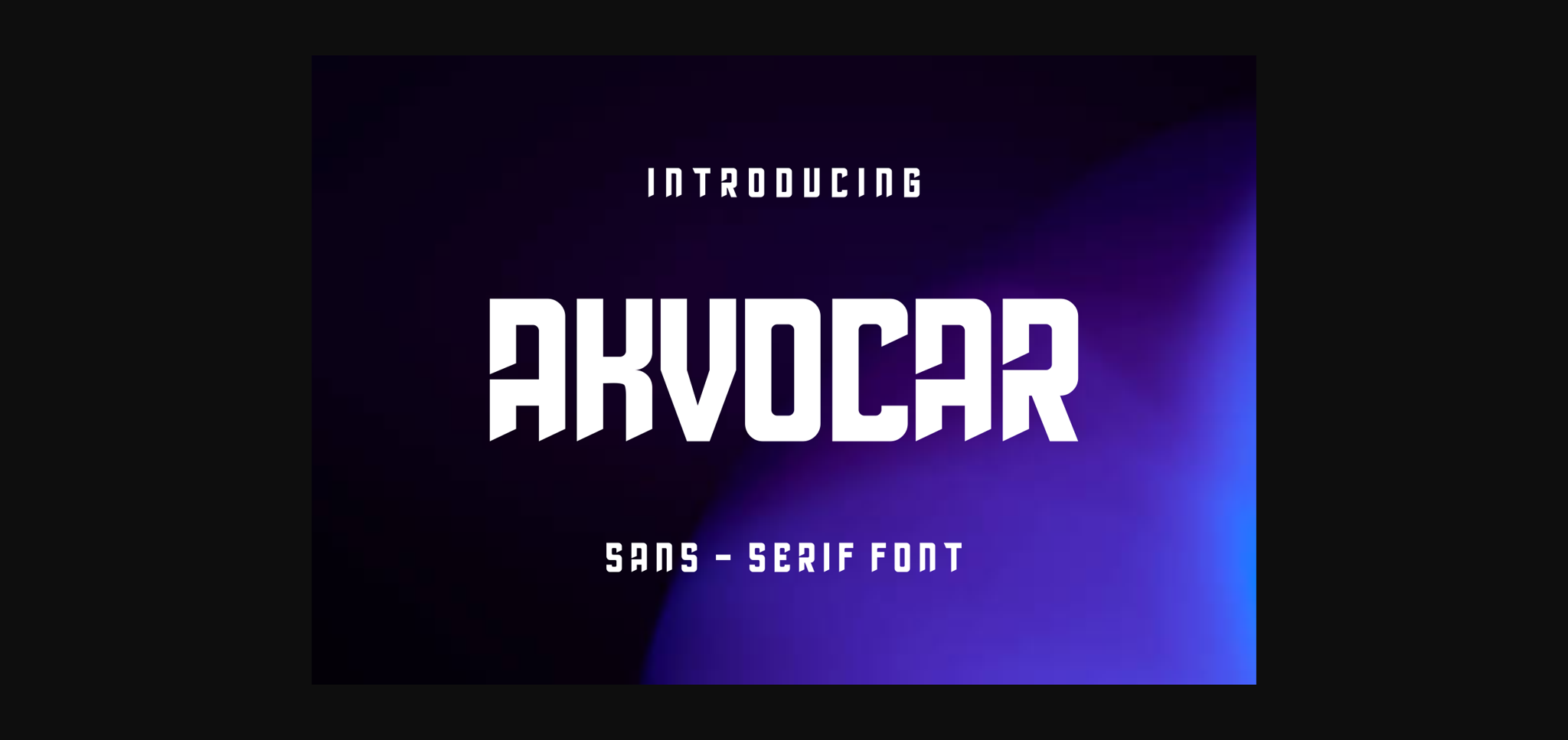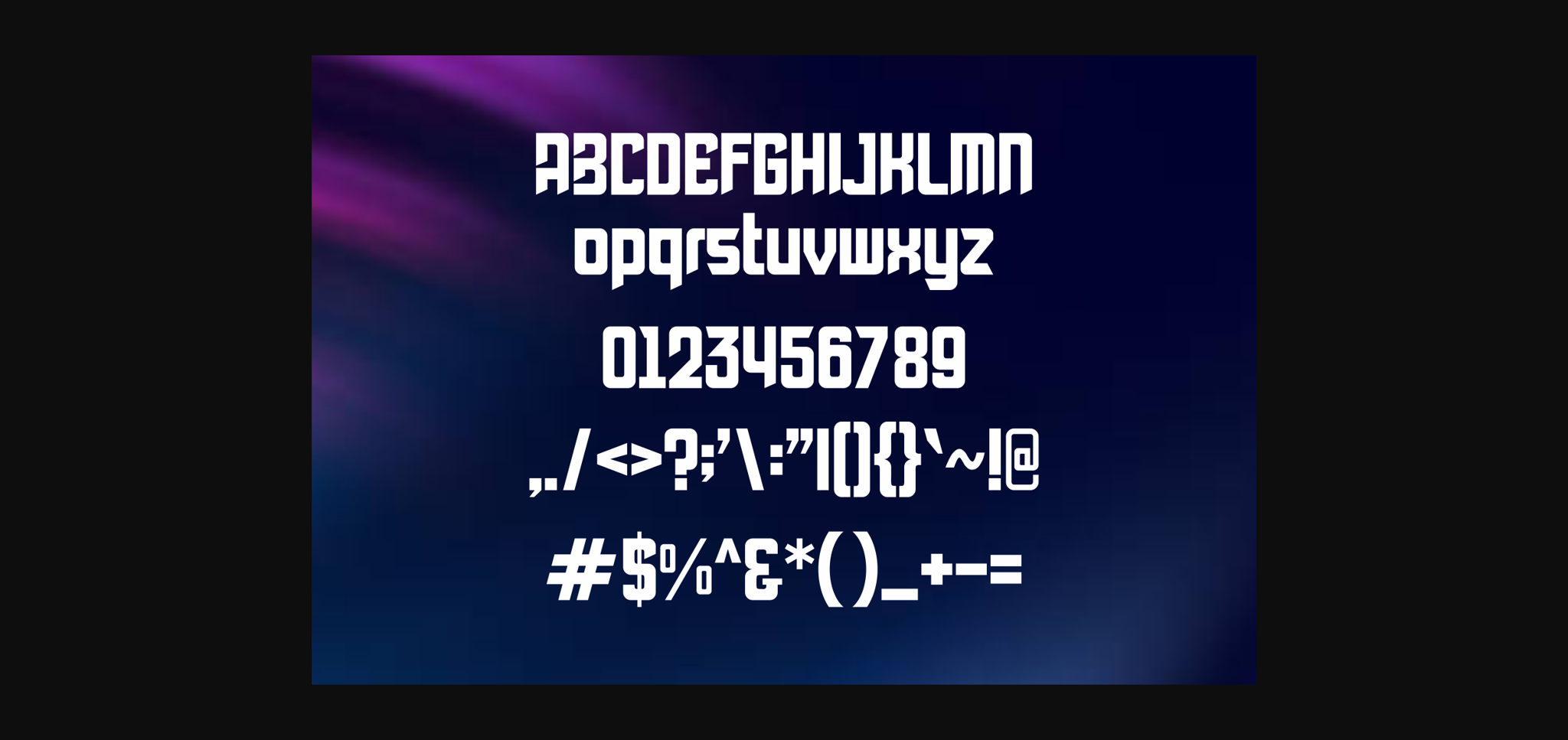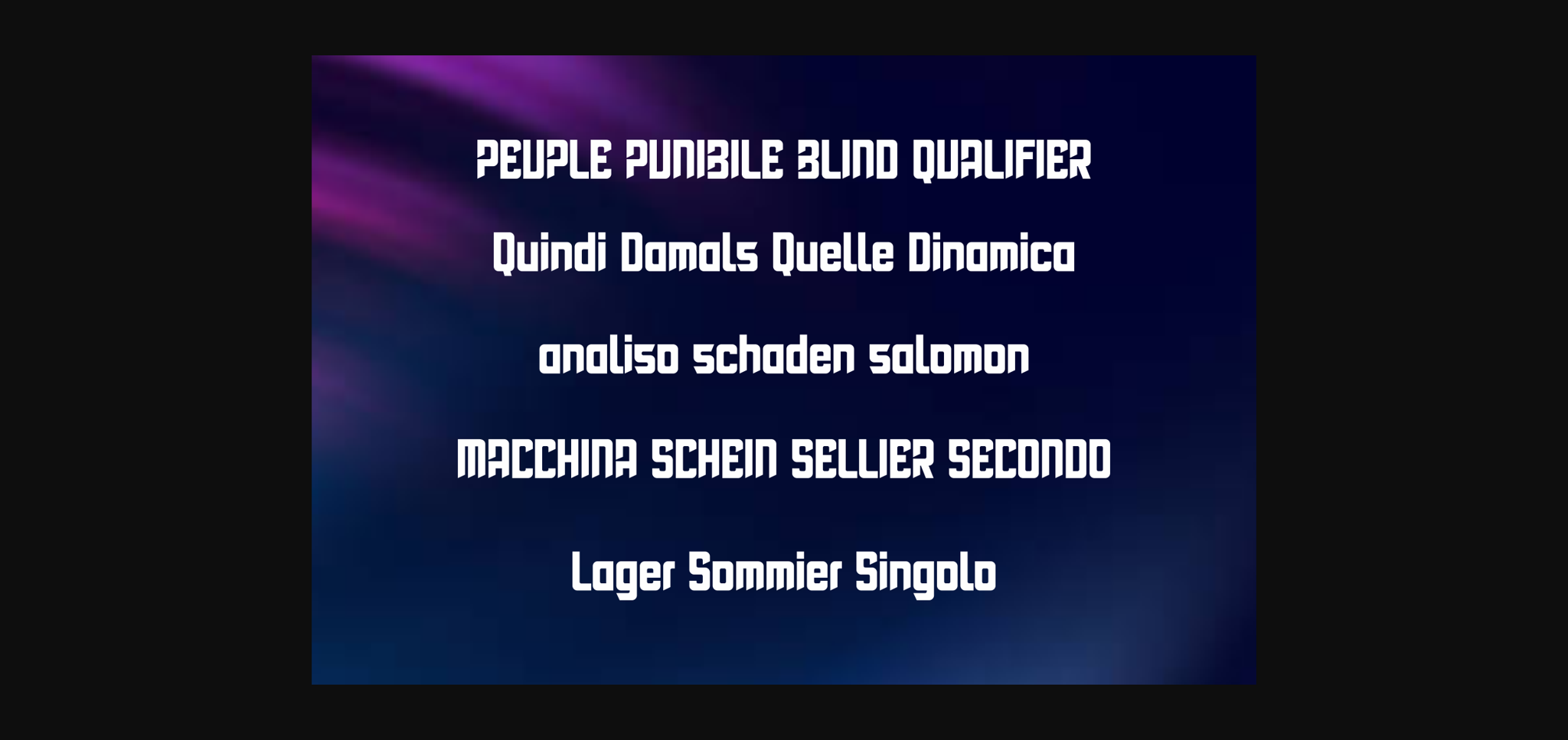
Akvocar Font
About Akvocar Font
Akvocar is a cool and neat sans serif font. No matter the topic, this font will be an incredible asset to your fonts’ library, as it has the potential to elevate any creation.